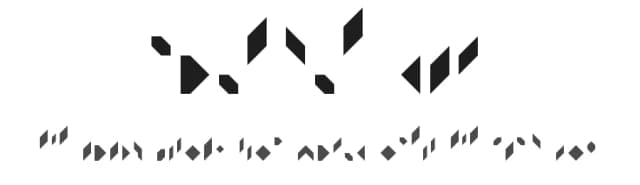
About Zuptype Pica Font
Zuptype Pica is a dingbat font designed by Zupton. It includes 145 glyphs, a regular weight, TTF (TrueType) format, and 134 languages. Zuptype Pica is free to download; check the license details on this page before commercial use. Dingbat fonts like Zuptype Pica work best for icons, ornaments, bullet points, and decorative accents.
Zuptype Pica Font is a versatile dingbats font that works for both headings and body text. Pair it with a contrasting sans-serif or serif font to add visual interest and a clear distinction between titles and body copy.
Zuptype Pica Font